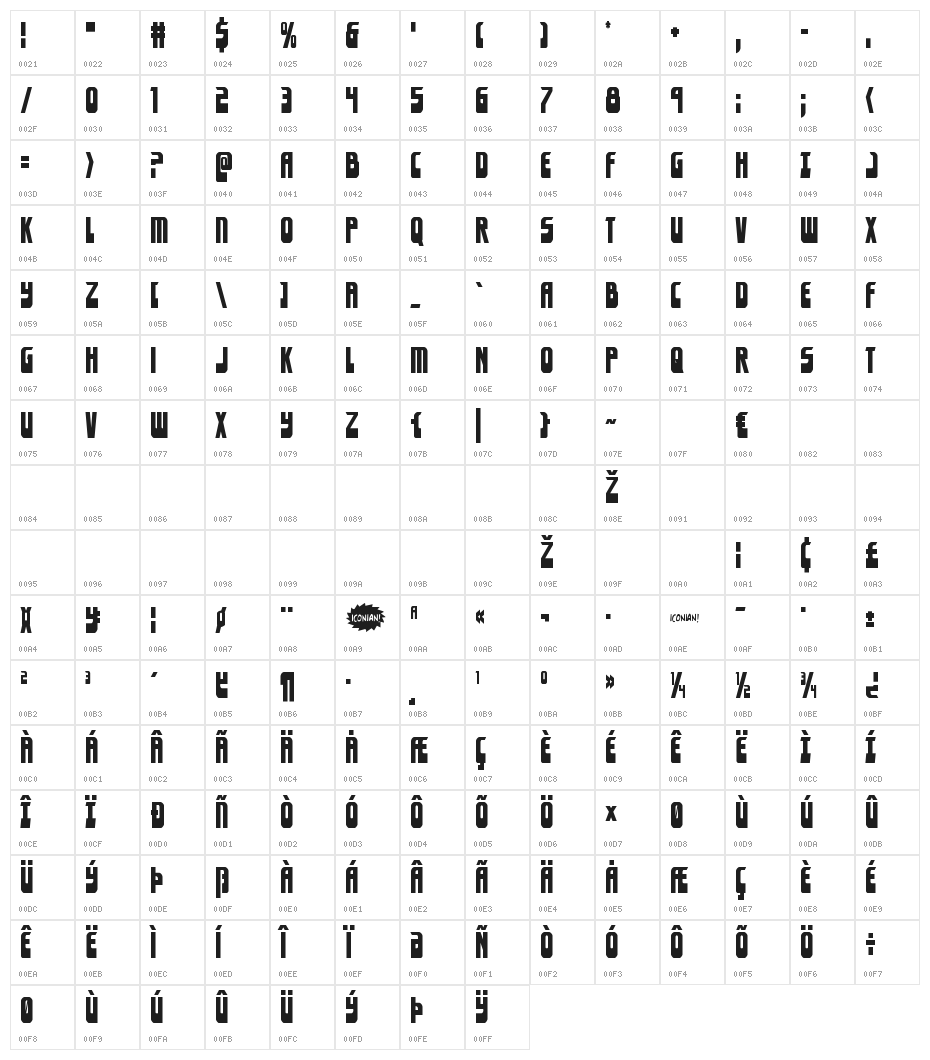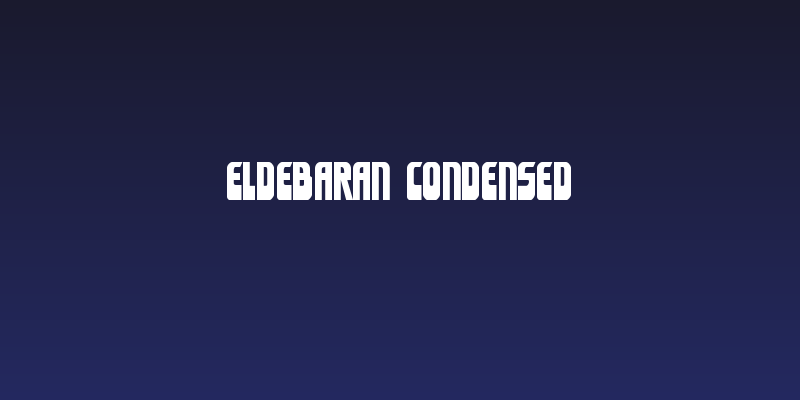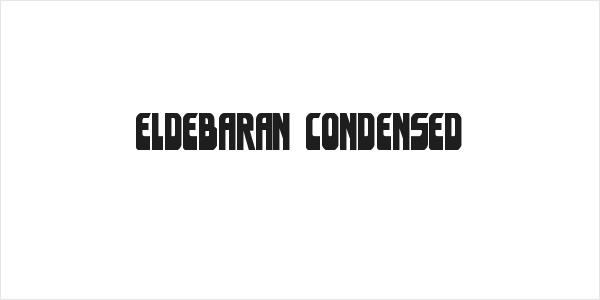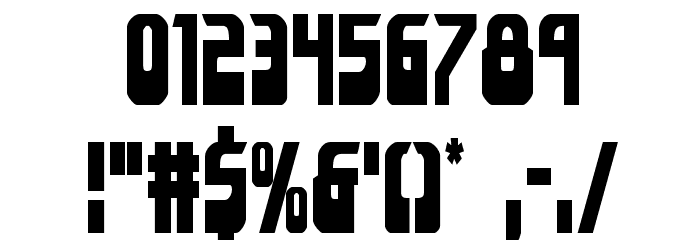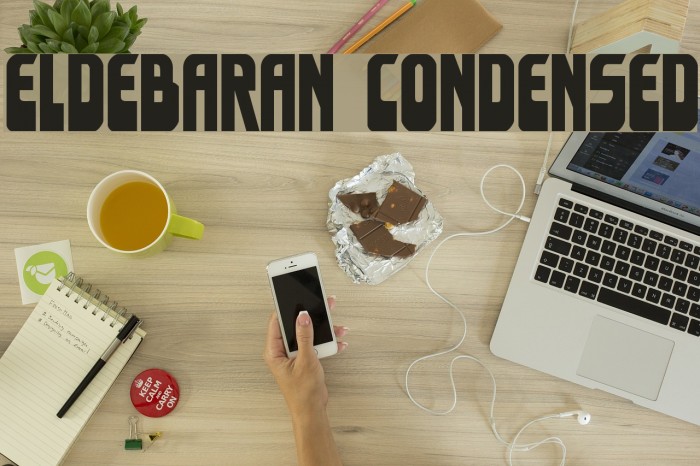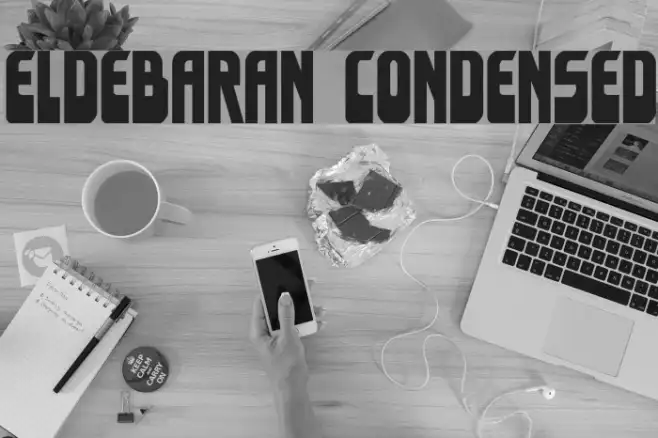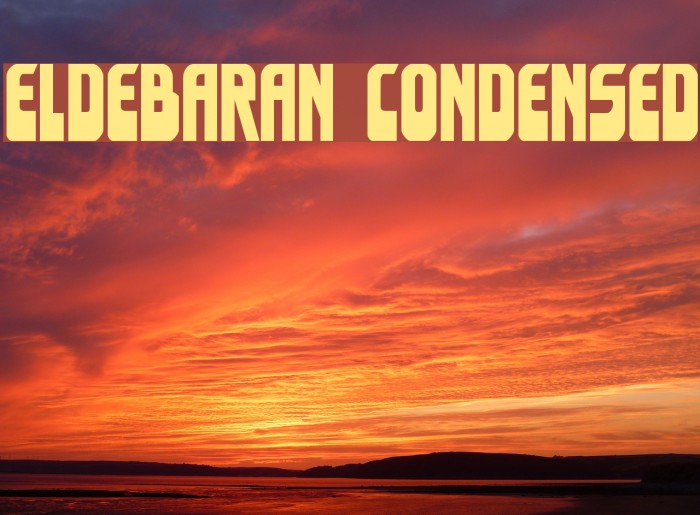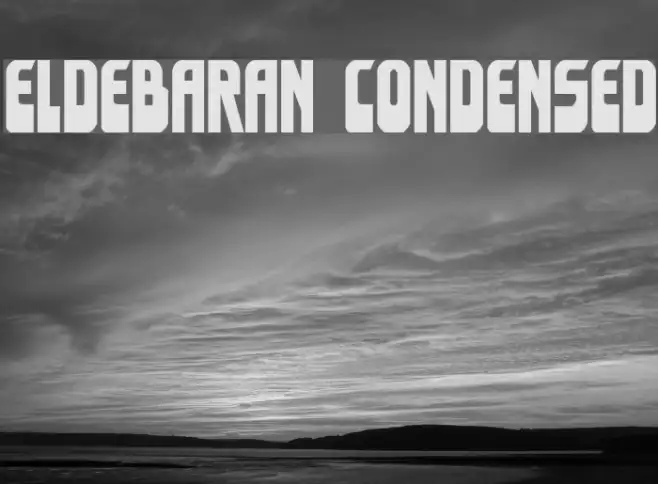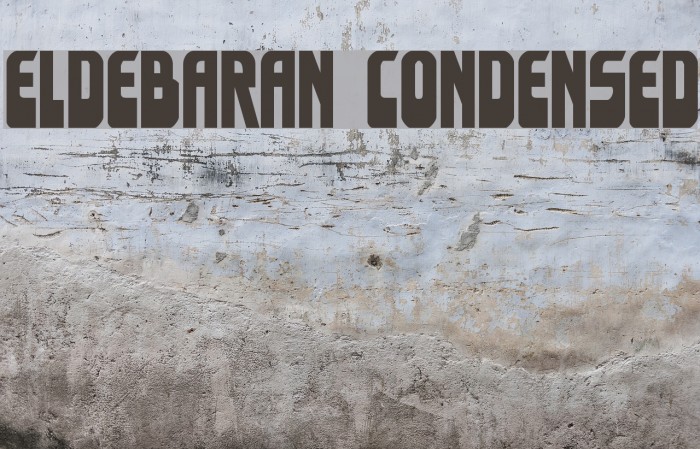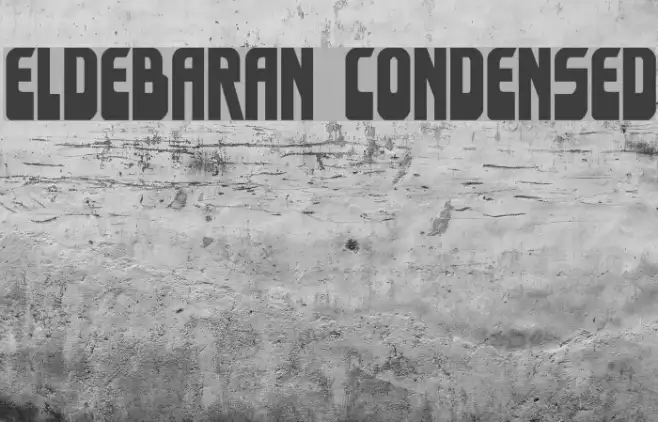
Eldebaran Condensed Font
Eldebaran Condensed Description
This font features a bold and condensed style with a strong geometric influence. The characters are designed with sharp angles and straight lines, giving them a modern and industrial feel. The uppercase letters are particularly striking, with a uniform height and width that creates a cohesive and impactful appearance. The numbers and special characters maintain this boldness, ensuring consistency across all elements. The font's condensed nature allows for efficient use of space, making it ideal for headlines and titles where impact is essential.